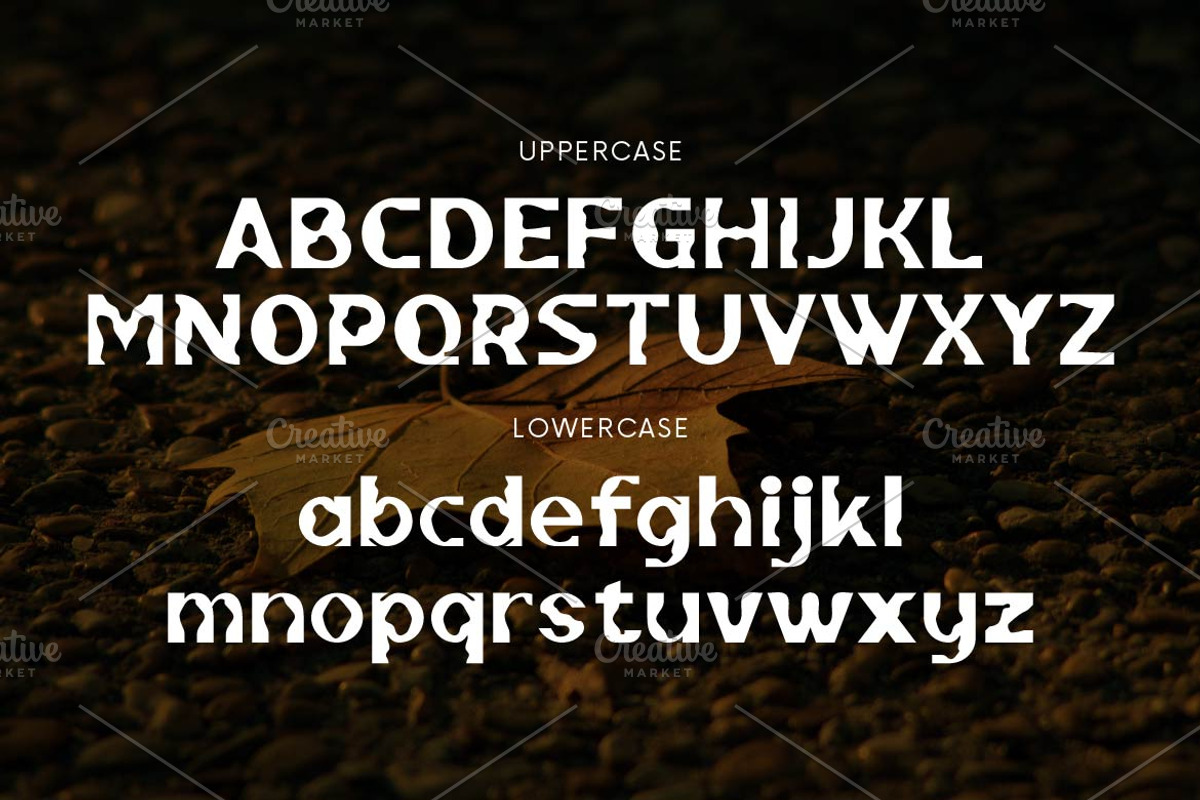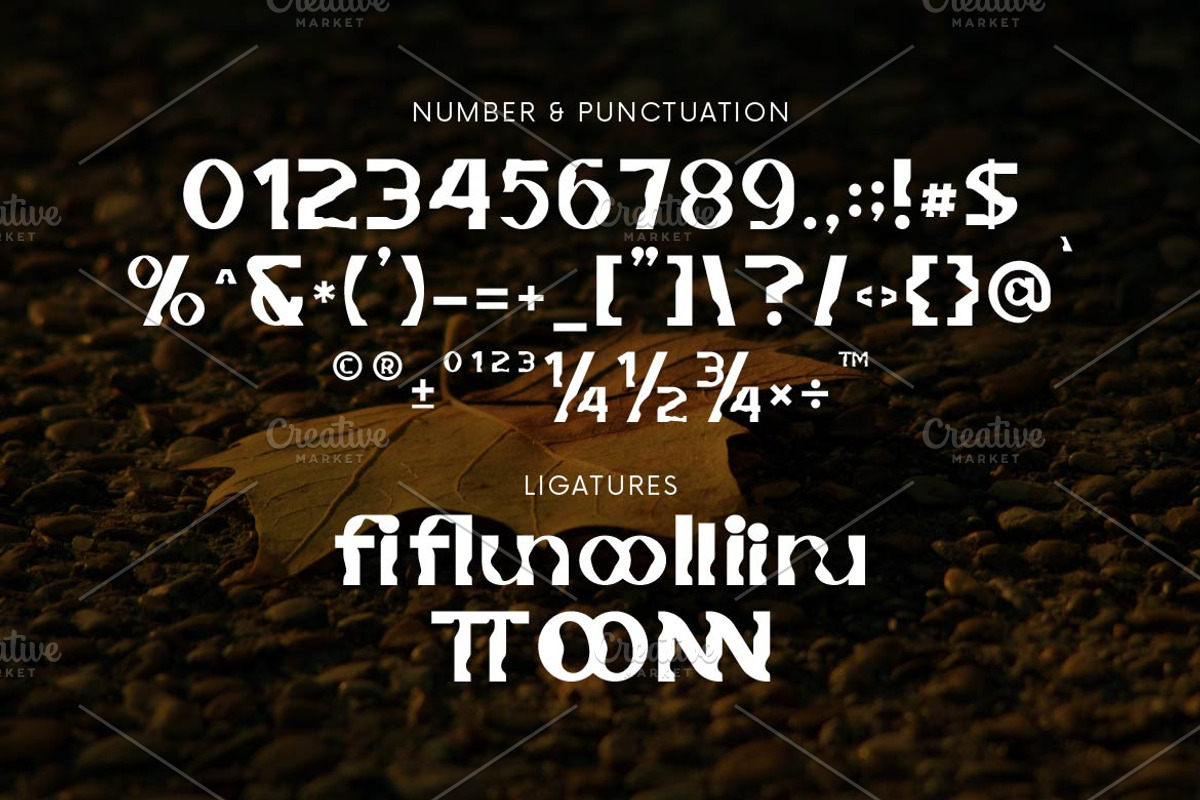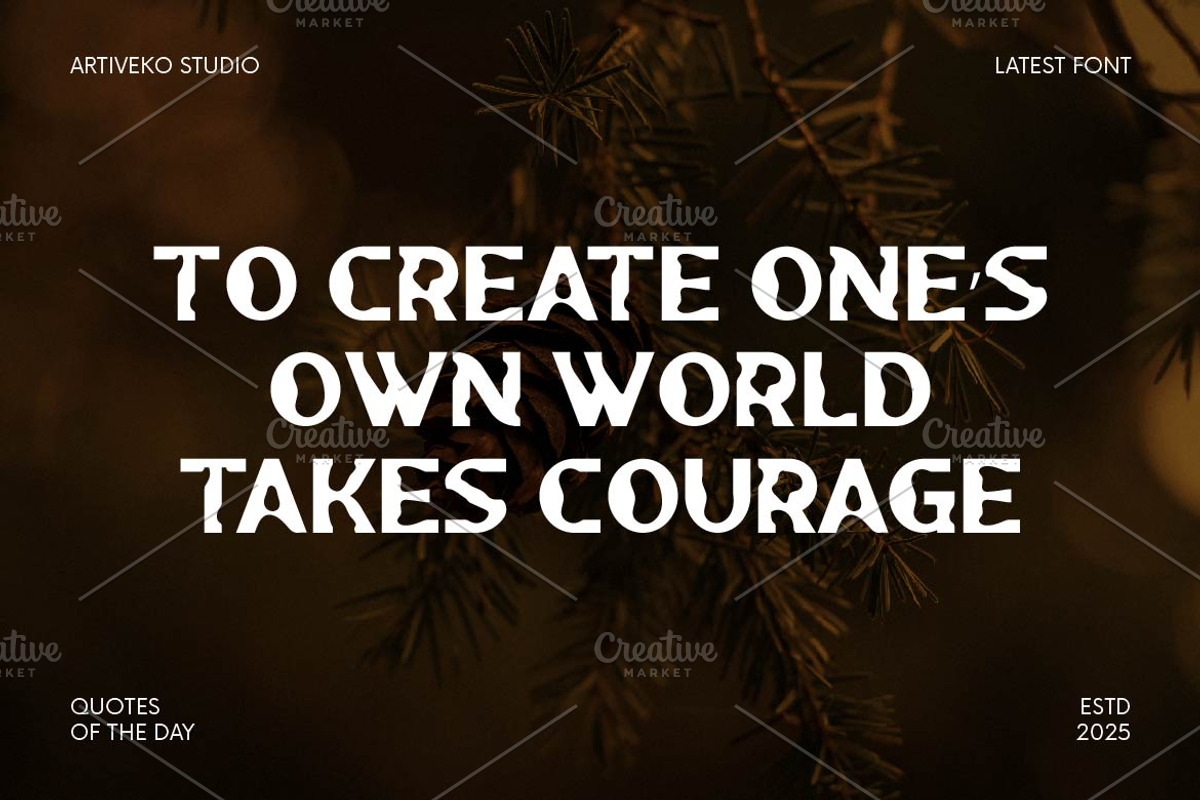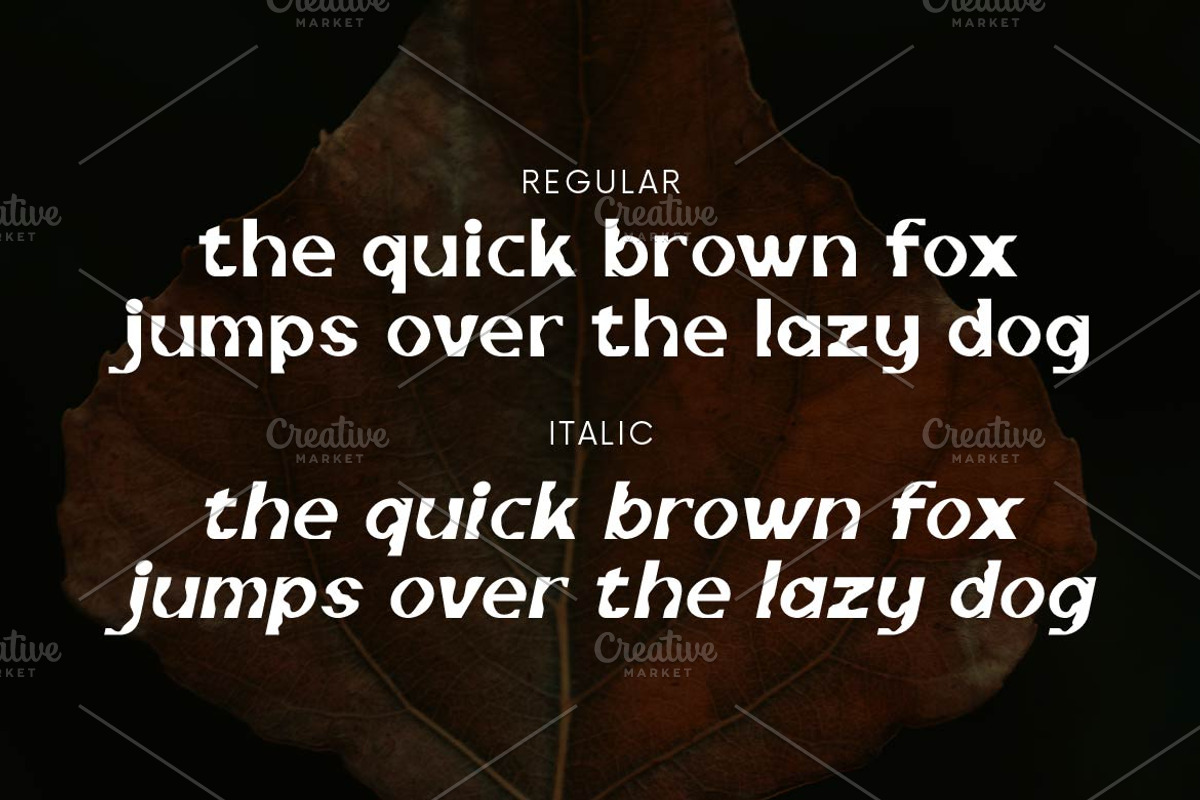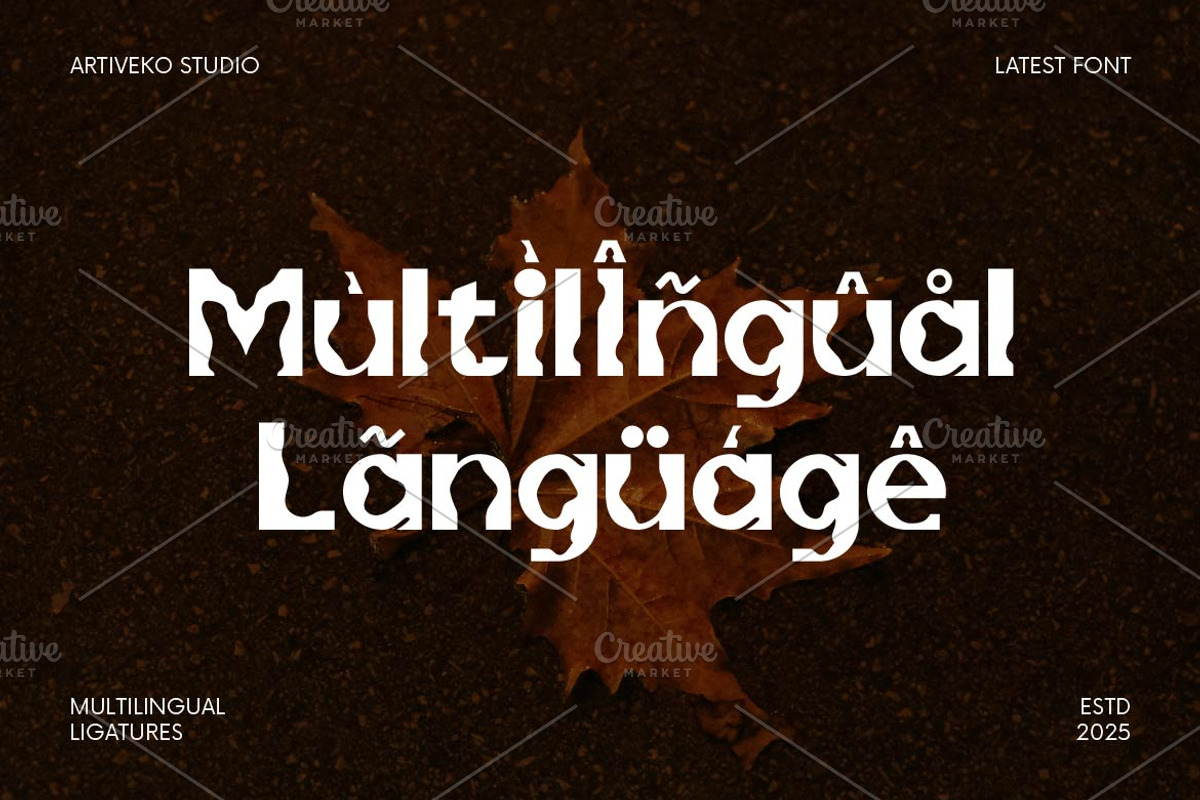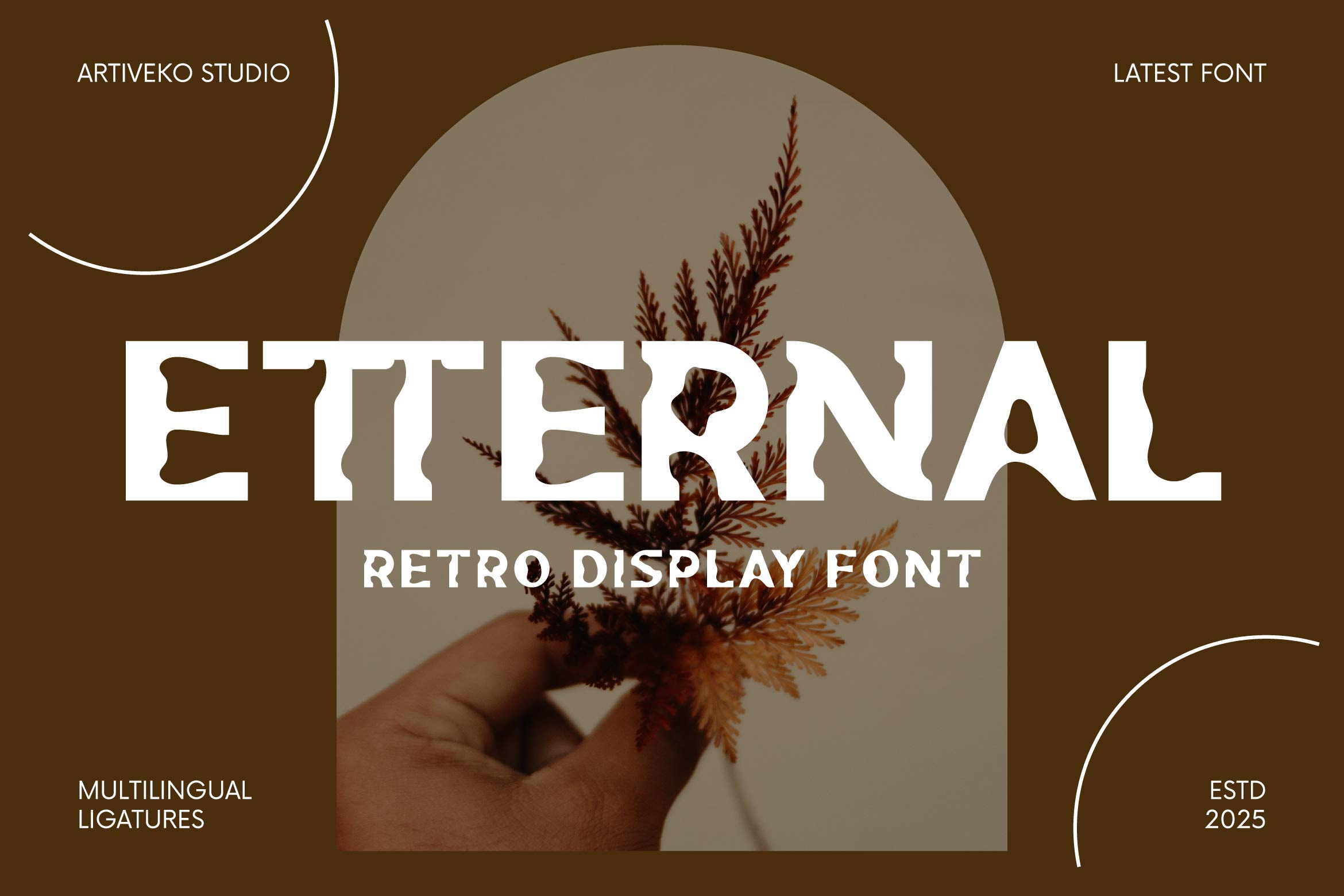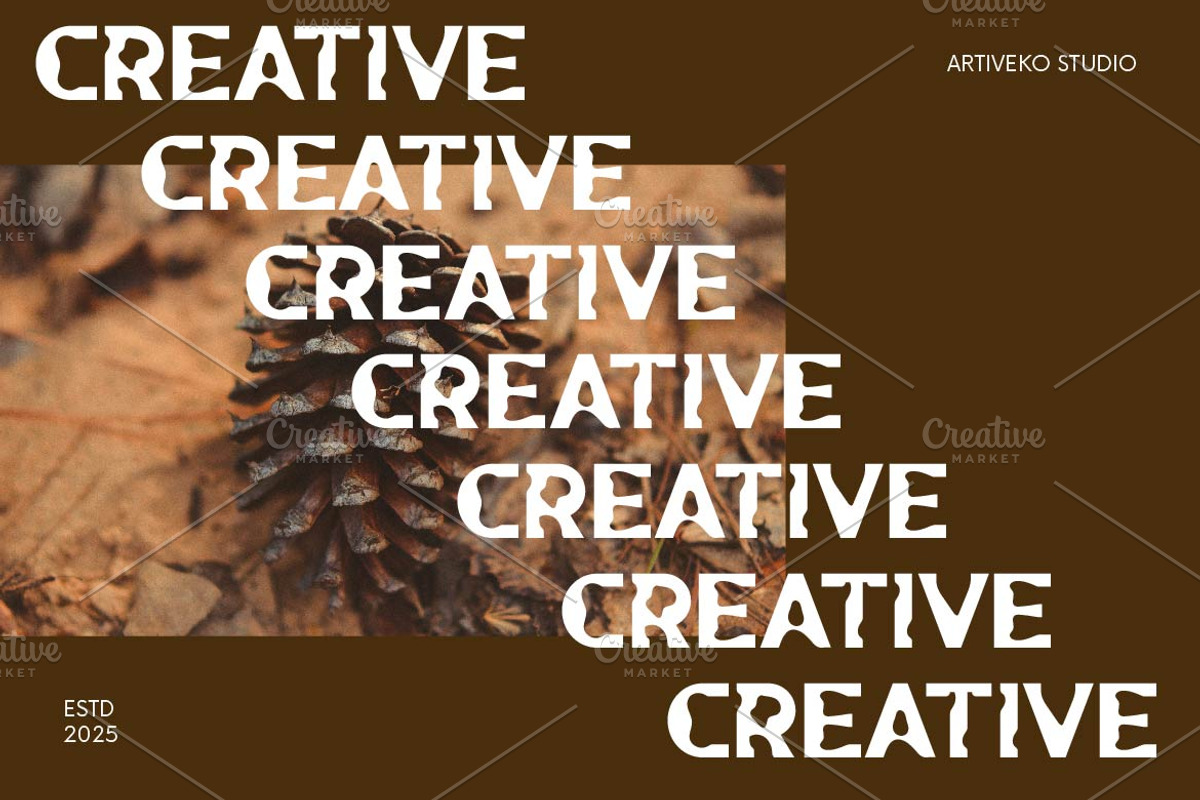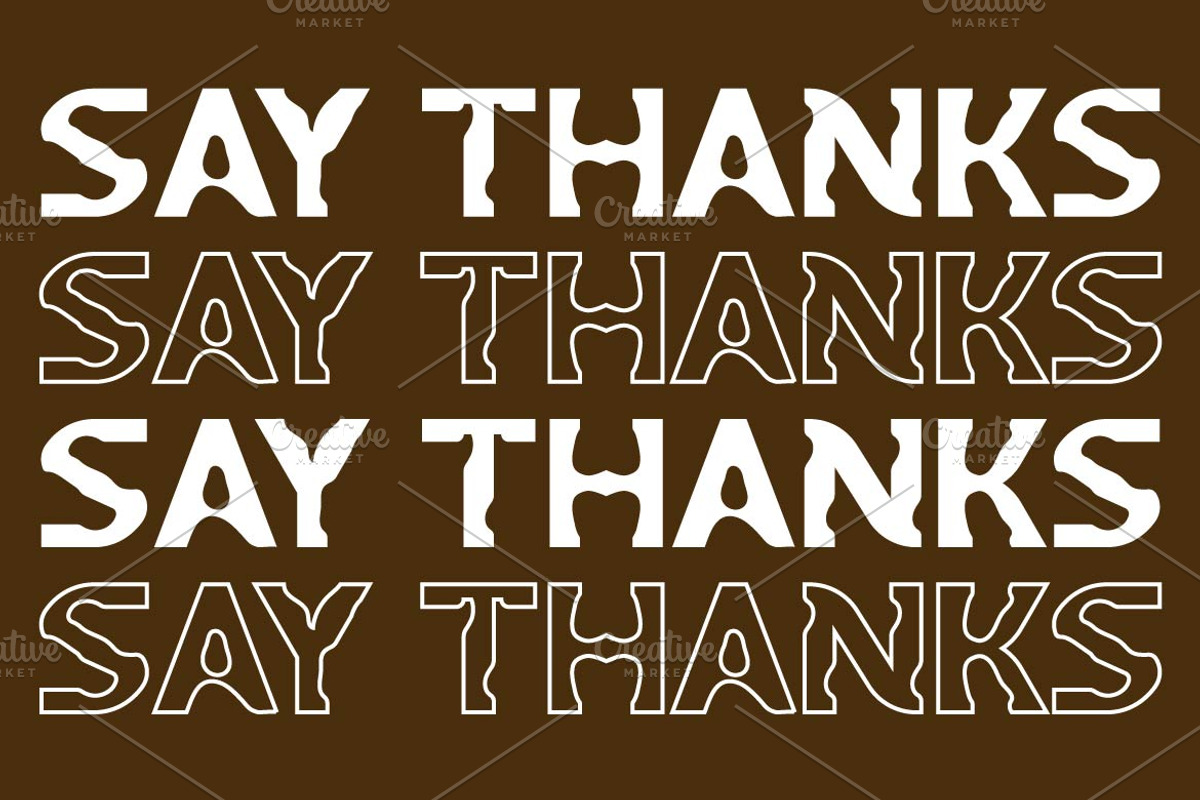
Etternal Display Retro Font
Etternal is a retro display font inspired by vintage aesthetics with a modern twist. Its bold curves, playful proportions, and nostalgic flair make it perfect for posters, packaging, logos, and editorial titles. Equipped with multilingual support, ligatures, and alternates, Etternal brings timeless character and charm to any design project that craves a touch of retro elegance.